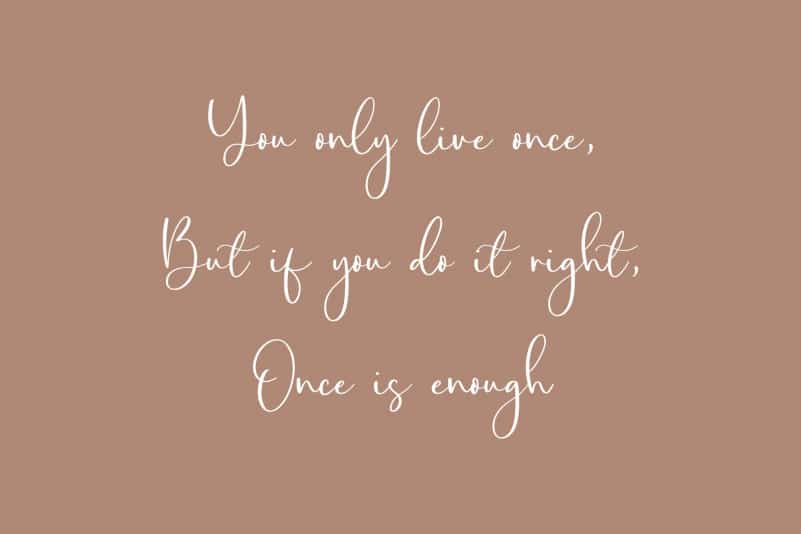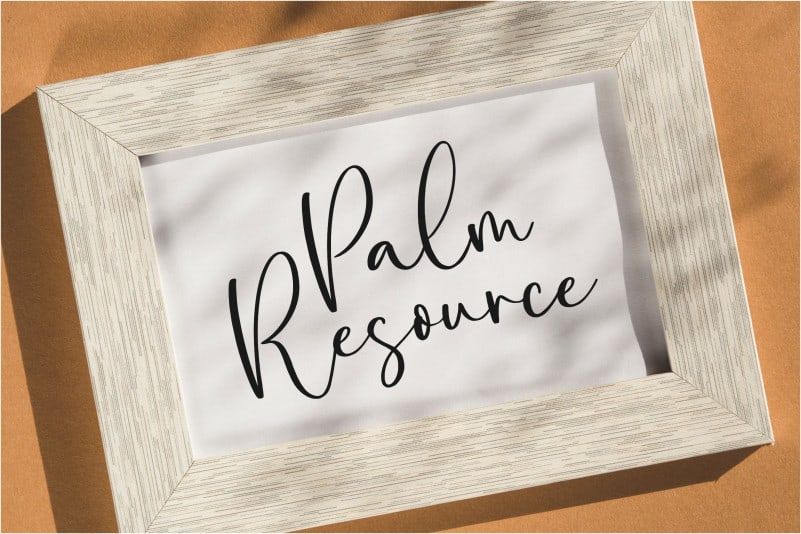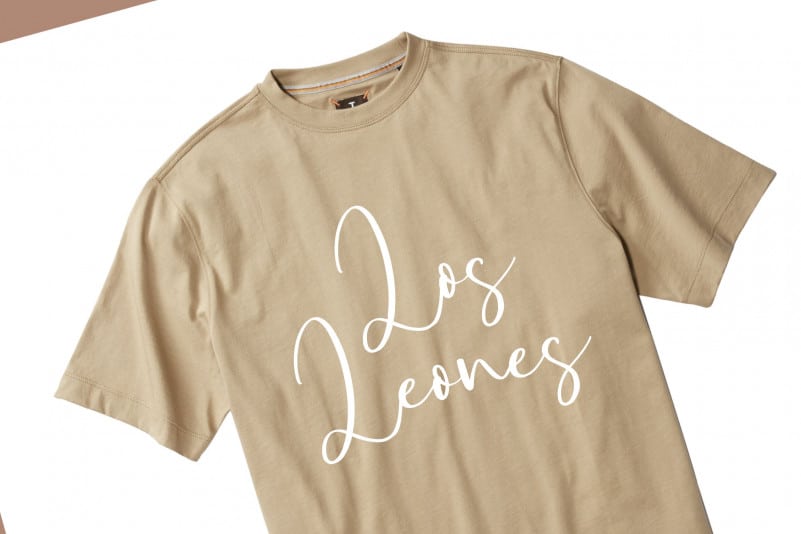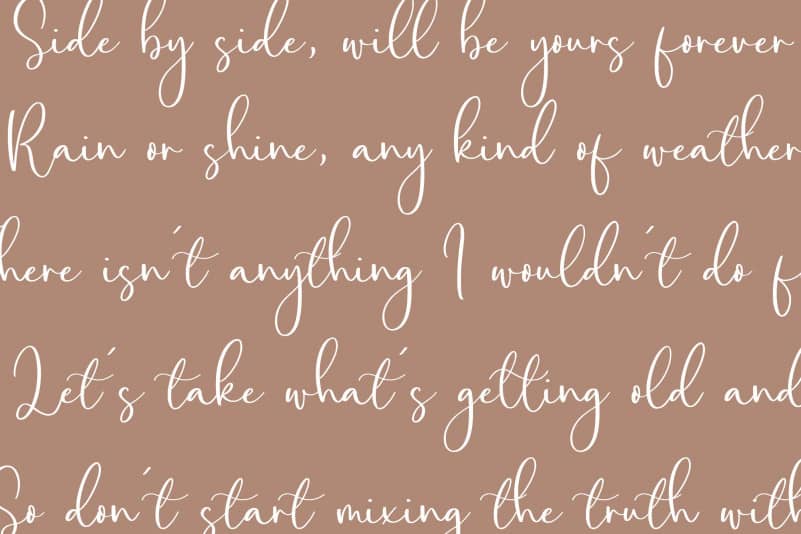
Amalia Salvatore Calligraphy Font
Proudly Present, Amalia Salvatore Calligraphy Font.
Amalia Salvatore is a Beautiful Modern Calligraphy Font.
Amalia Salvatore is perfect for product packaging, branding project, megazine, social media, wedding, or just used to express words above the background.